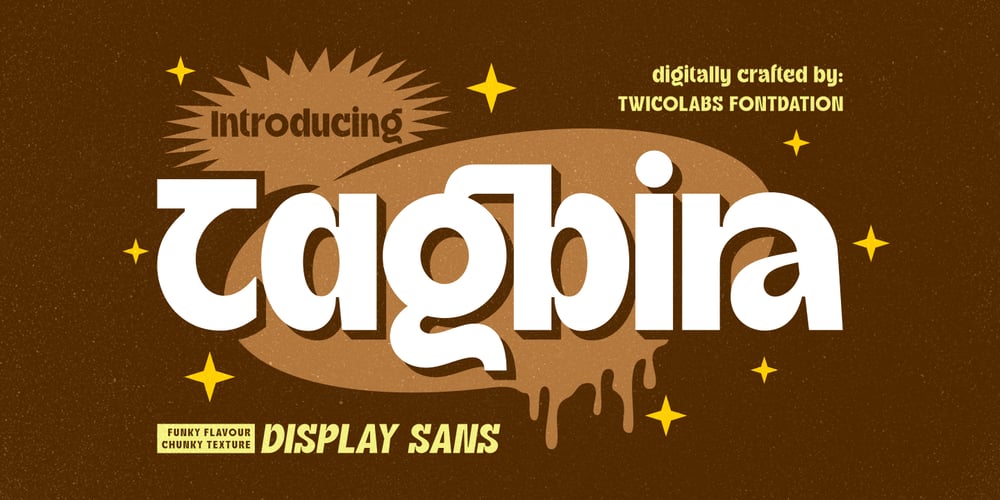
Tagbira Font Family was designed by Fahrizal Tawakkal and published by Fontdation. Tagbira contains 2 styles and family package options. NEW FONT ALERT!! Hello, it’s good to be back with a new font in this holy month (for us Moslems) called Tagbira. This chunky and bold sans serif is set to capture both classic and modern feel. Digitally crafted with high attention to details (smooth lines and curves), you won’t regret it. Suits best for designs that need a punch-to-the-face feels, such as logo/branding, packaging, poster, quote design, headline, shirt design, etc.